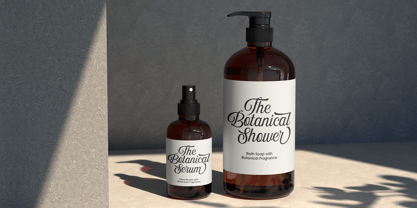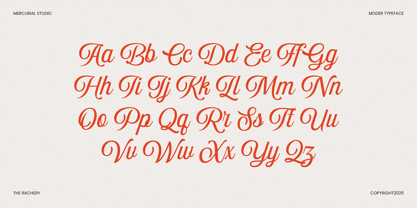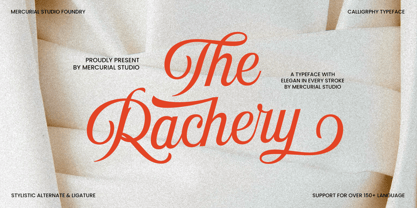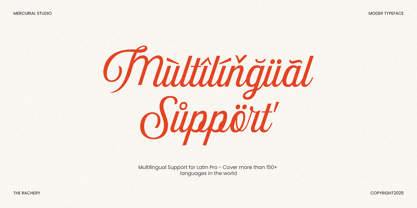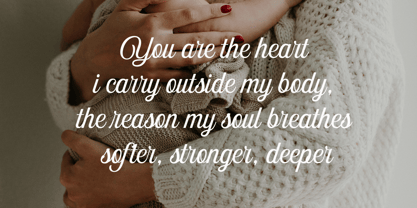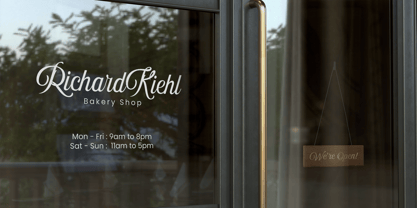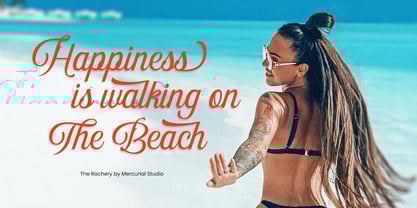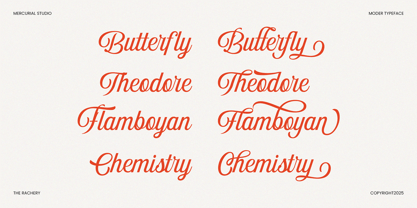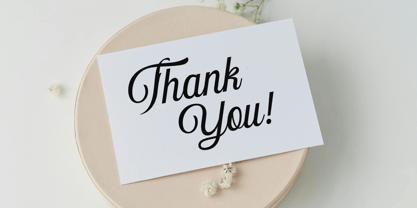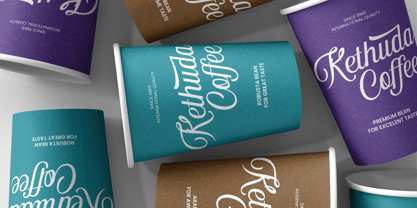
The Rachery
by Mercurial
The The Rachery Font Family was designed by Muksalmina, Muchsal Mercurial and published by Mercurial. The Rachery contains 1 styles. More about this family
Hello.. Introducing by Mercurial, The Rachery, A new fresh & modern calligraphy script with a deluxe calligraphy style. The impression is classy, yet modern, making "The Rachery" still catchy for all your creativity. A charming typeface and So beautiful on invitation like greeting cards, branding materials, business cards, quotes, posters, and more!
Features :
Uppercase & Lowercase, International Language by Latin Pro & Symbols Support Punctuation & Number PUA Unicode Range, Standard Ligatures, Discretionary Ligatures, Stylistic Alternates, Swash & many more character.
Designers: Muksalmina, Muchsal Mercurial
Foundry: Mercurial